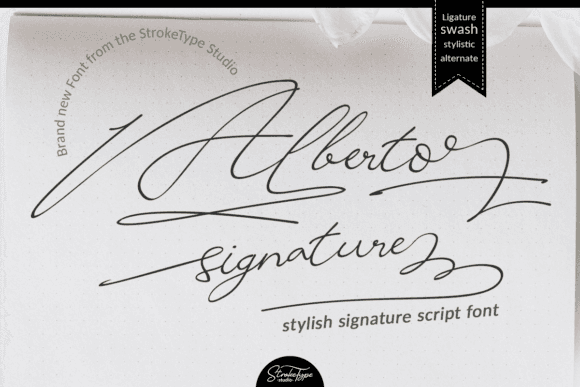
Alberto Signature Font for Elegant Logos and Branding
This is a refined signature-style script font created for elegant logos, brand marks, and polished visual identities. Alberto Signature delivers sweeping letterforms and graceful ligatures to elevate any high-end design.
As a font entity, it evokes the personal finesse of custom handwriting with the versatility of digital precision, ideal for boutiques, consultants, packaging, and premium merchandise branding.
Its balance of flow and clarity makes it a favorite for logo-based storytelling and stylish printed materials.
- Elegant logos and watermarks
- Brand identity systems and monograms
- High-end packaging and tags
- Stationery, thank-you cards, and invites
- Printed materials with a signature touch
- Authentic signature aesthetic
- Ideal for high-end branding and logo marks
- Built-in ligatures for a natural flow
- Works with both print and digital platforms
Q: What style is Alberto Signature?
A: It's a flowing, elegant script font inspired by real signature handwriting, perfect for branding and logo work.
Q: Is this font good for printing?
A: Absolutely. It's designed for clarity and elegance in print formats such as cards, tags, and packaging.
Q: Does it include alternate characters or ligatures?
A: Yes, Alberto Signature includes stylistic ligatures that enhance natural flow in your designs.